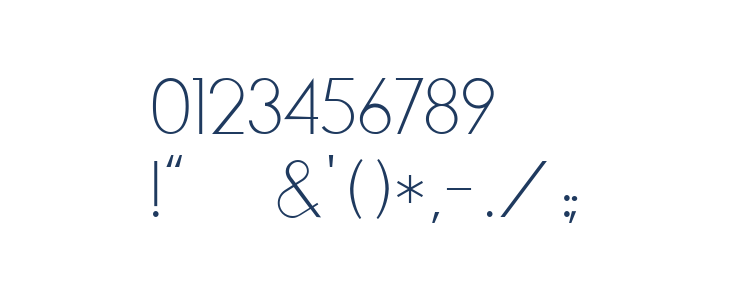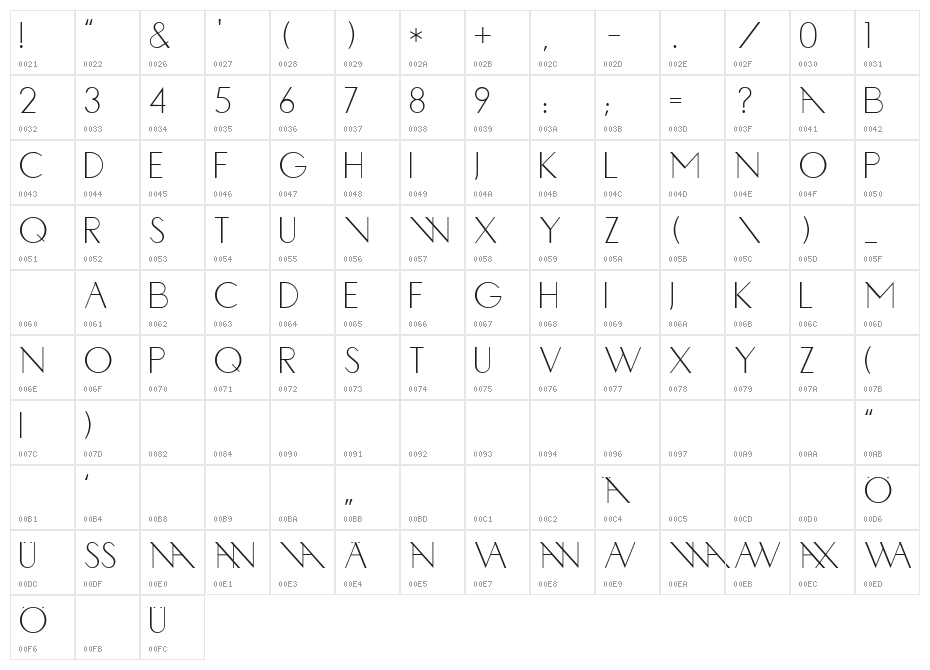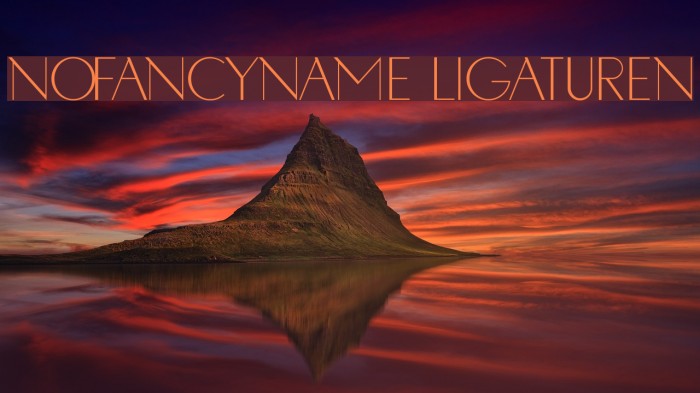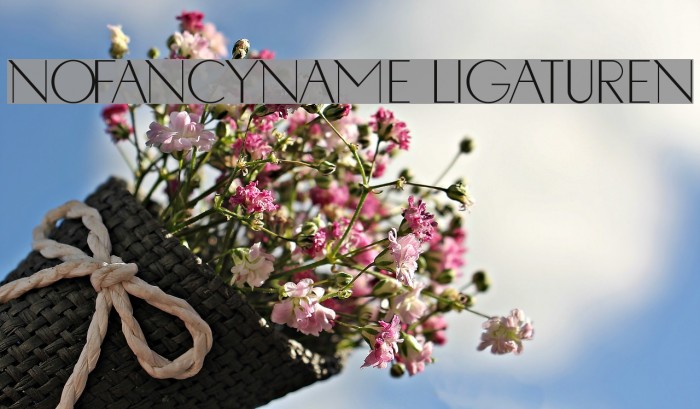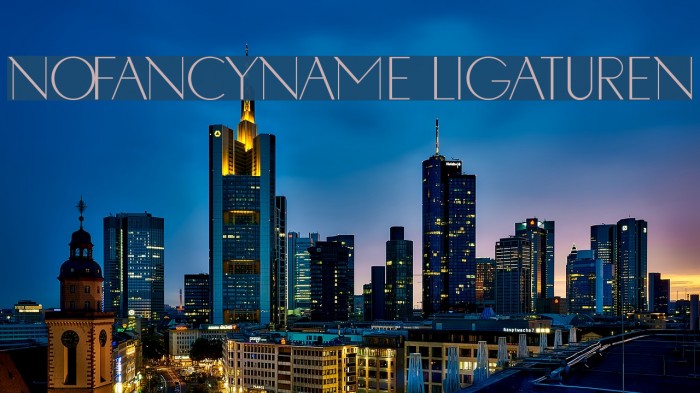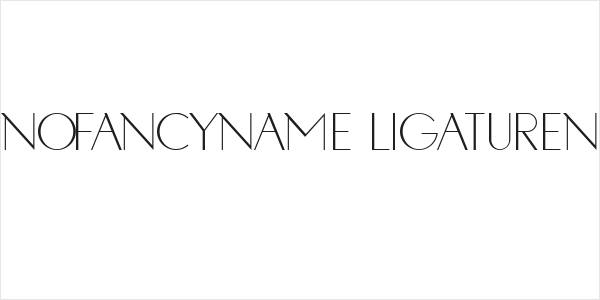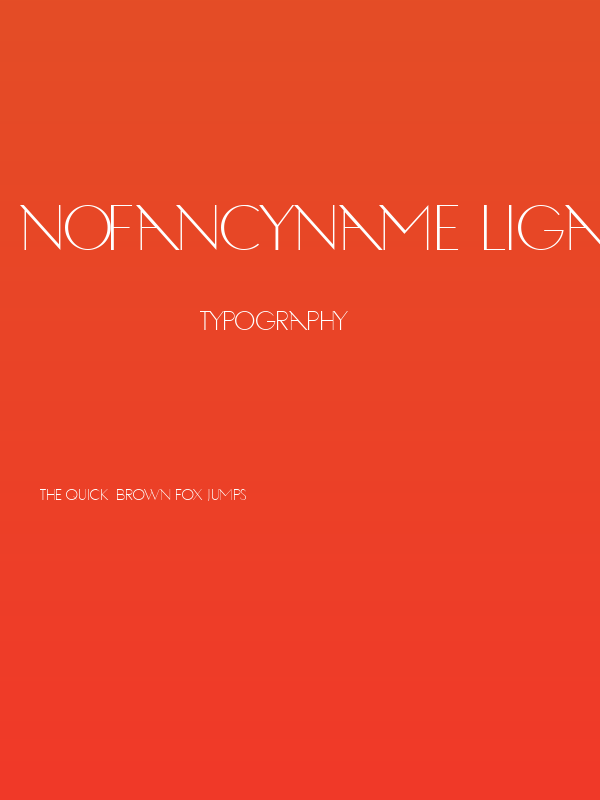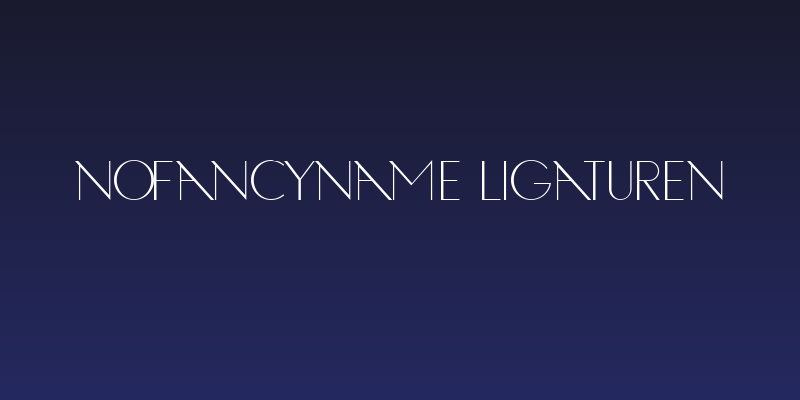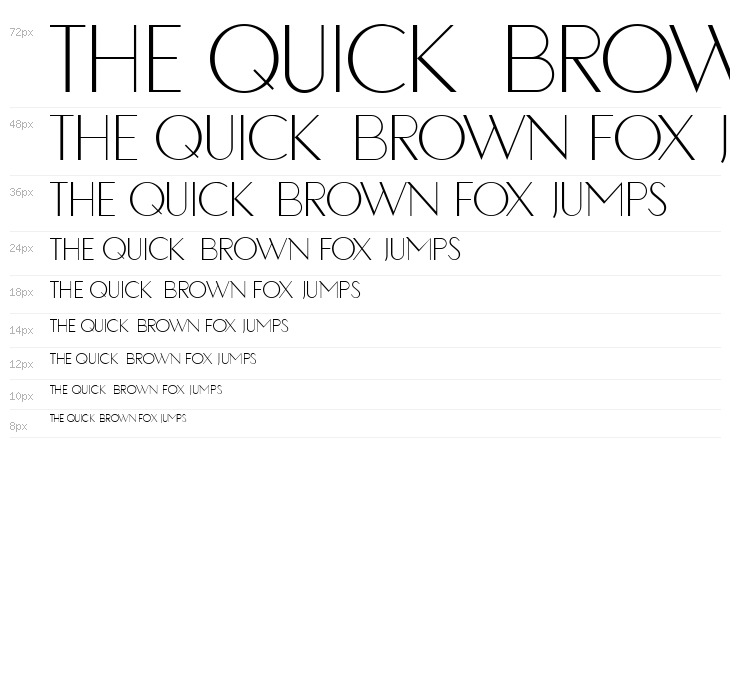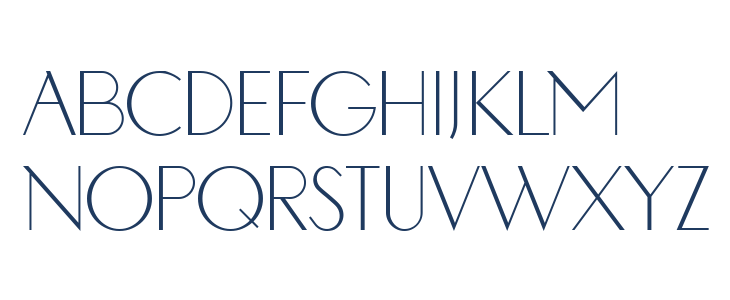
NoFancyName Ligaturen Font
NoFancyName Ligaturen Description
This font features a modern, geometric design with clean lines and a sleek appearance. The uppercase letters are characterized by their angular forms and consistent stroke widths, giving them a contemporary and sophisticated look. The lowercase letters maintain a similar style, with a focus on readability and balance. The numerals are distinct and easy to read, following the same geometric principles. Special characters are well-integrated, maintaining the overall aesthetic of the font. This typeface is versatile, suitable for a variety of design applications where a modern and elegant touch is desired.
| Proposed Projects | Ideal for branding, editorial design, advertising, and digital interfaces where a modern and elegant look is needed. |